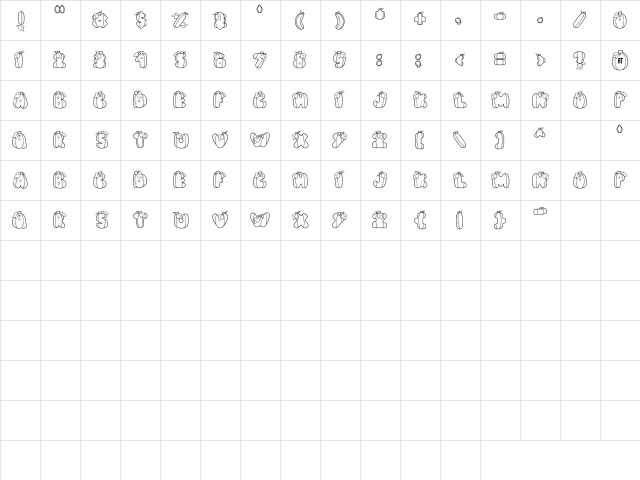
LD Pumpkin Regular Free Font
LD Pumpkin Regular
Complete LD Pumpkin Regular glyph index. Displaying only characters natively supported by LD Pumpkin Regular font.
Design Context for LD Pumpkin
LD Pumpkin is a composed and adaptable typeface that performs quietly and consistently across a wide range of design contexts.
Pro Tip: Use LD Pumpkin in both headline and body roles to test its range before committing to a single application.